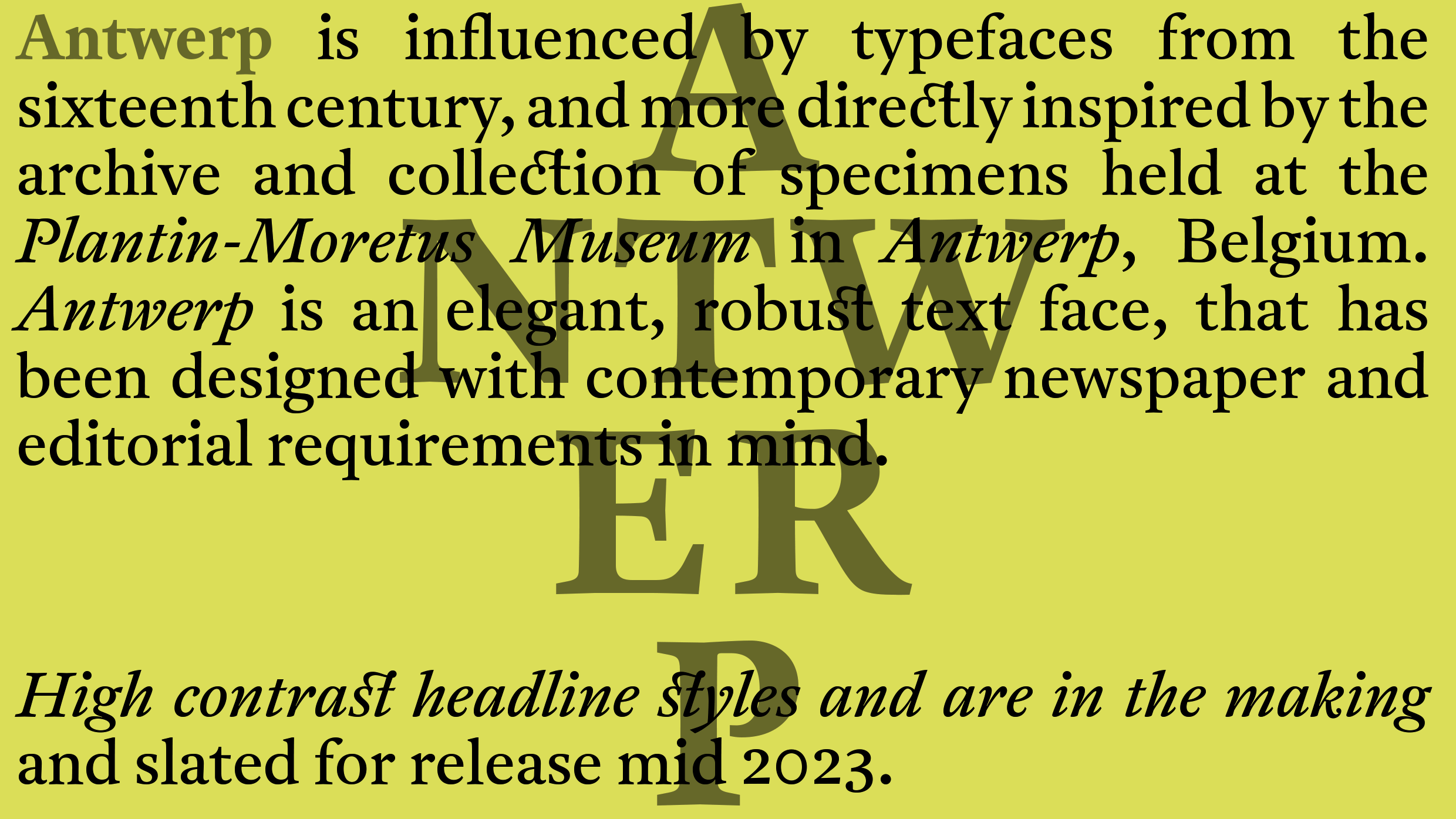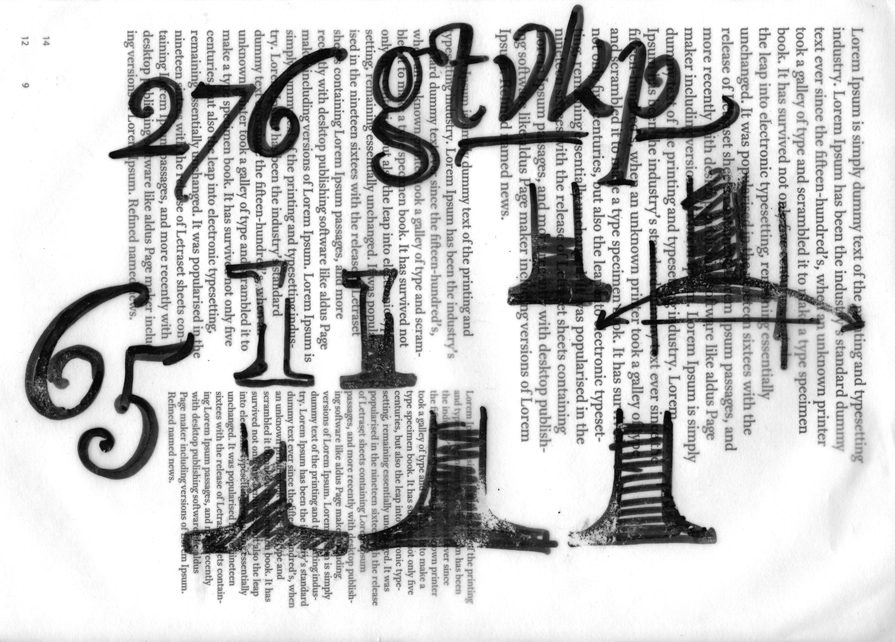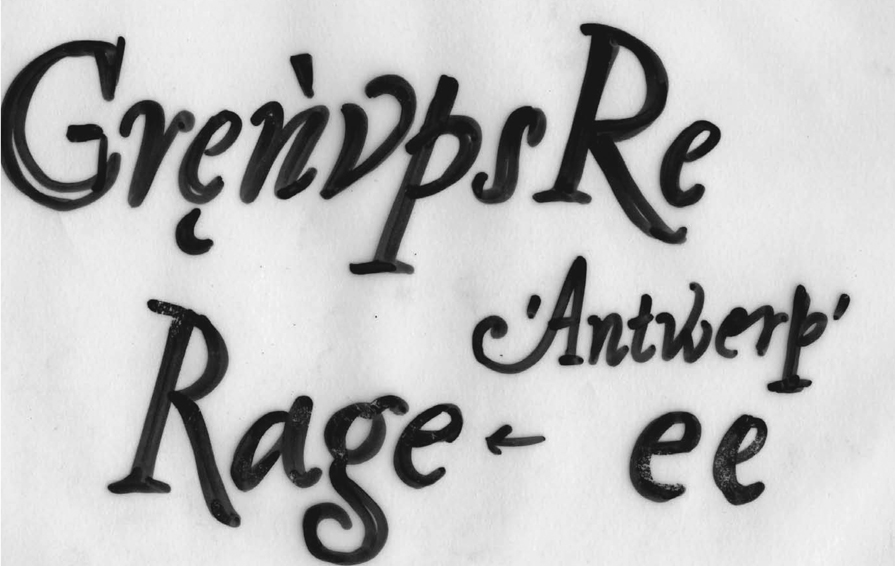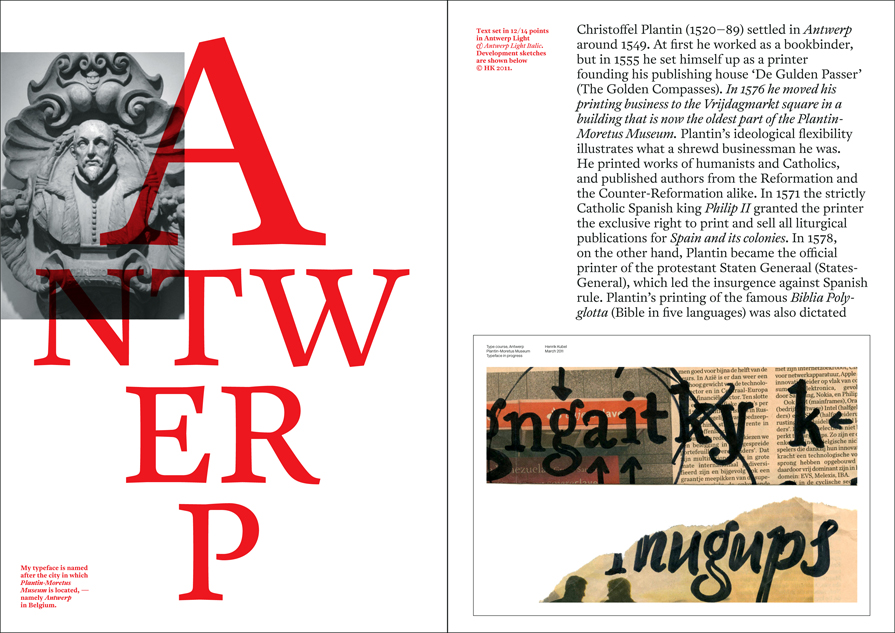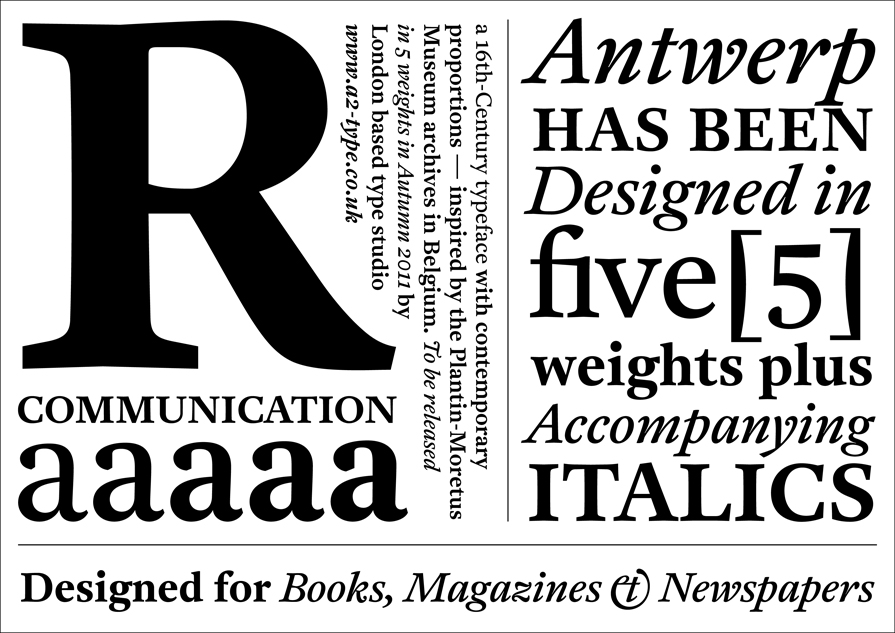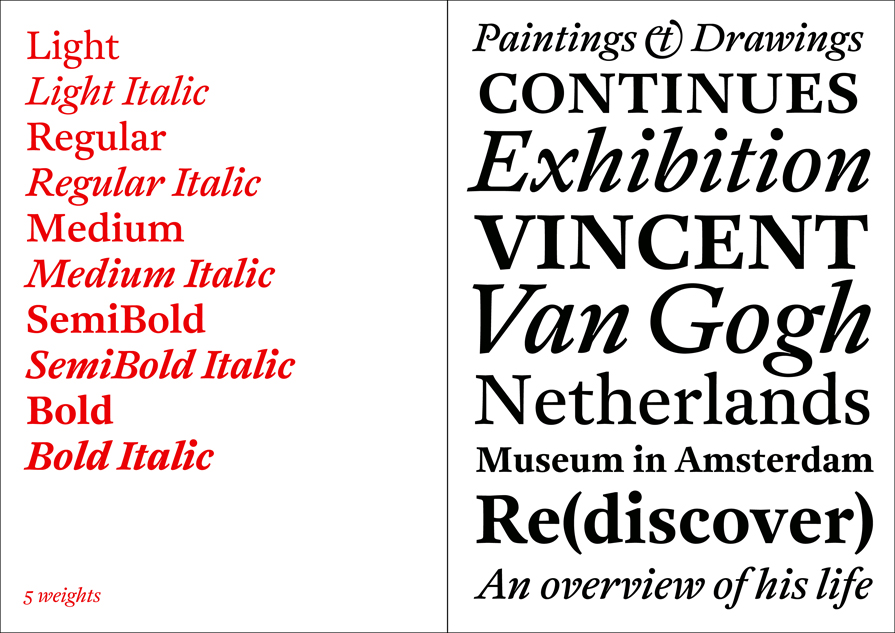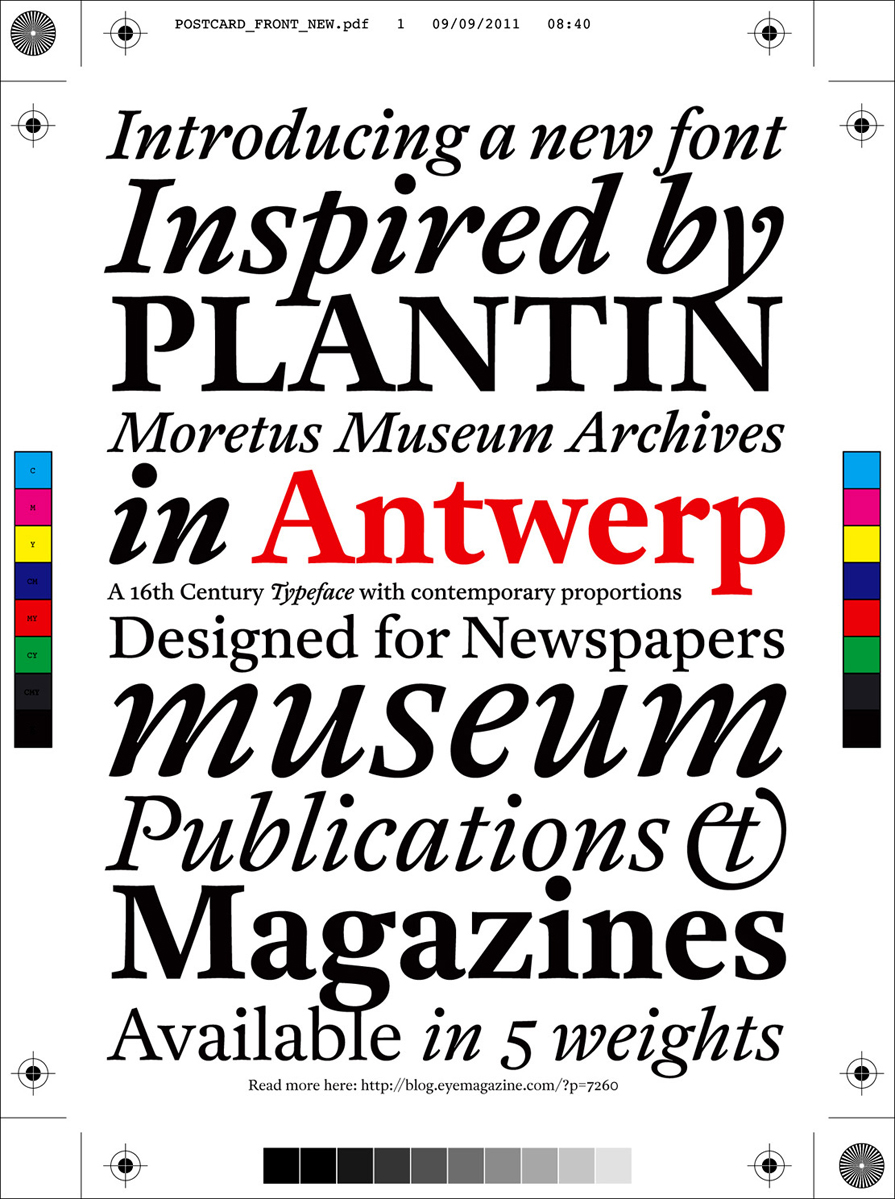
Antwerp is inspired by typefaces from the sixteenth century and more directly by the collection of type specimens held in the archive at the Plantin-Moretus Museum in Antwerp, Belgium. Antwerp is an elegant, versatile text face inspired by the past but designed for use in today’s newspapers, books, and magazines.
| Styles: | Light Light Italic Regular Italic Medium Medium Italic SemiBold Italic Bold Bold Italic |
| Designer: | Henrik Kubel |